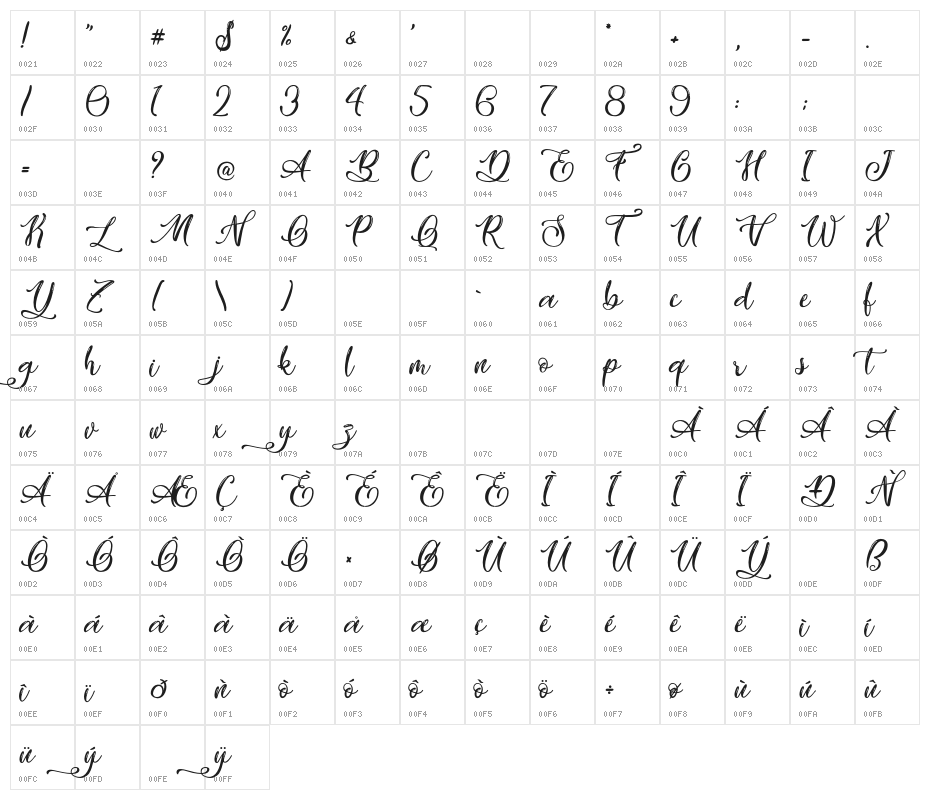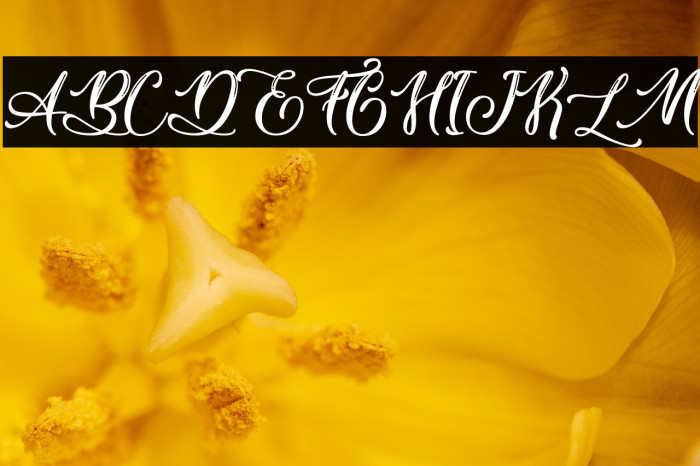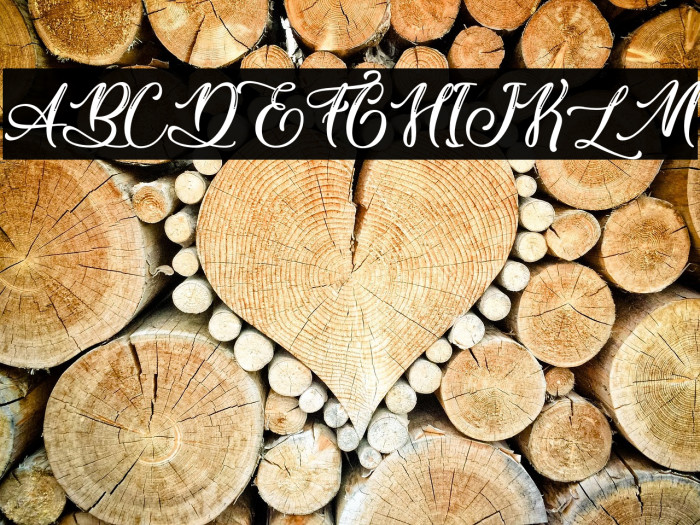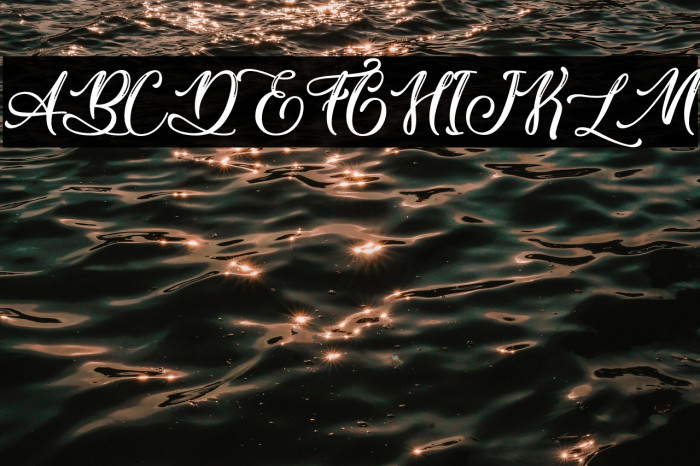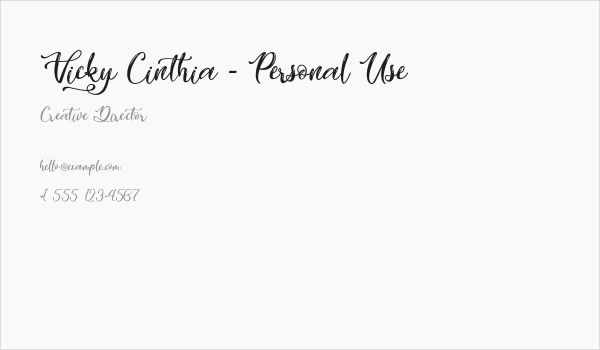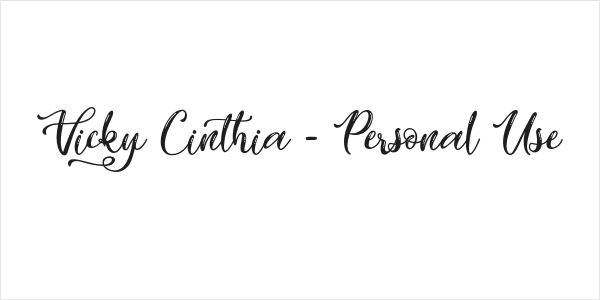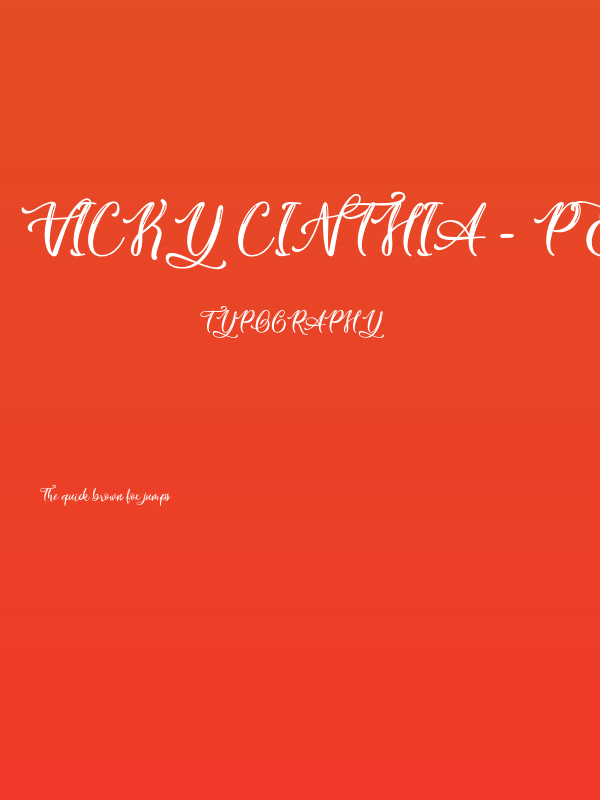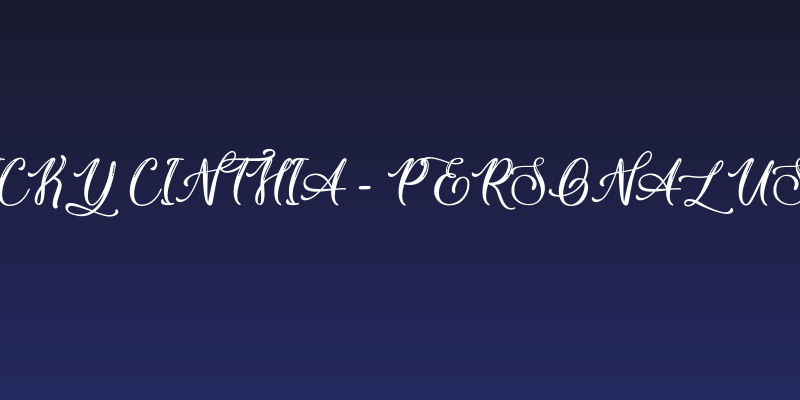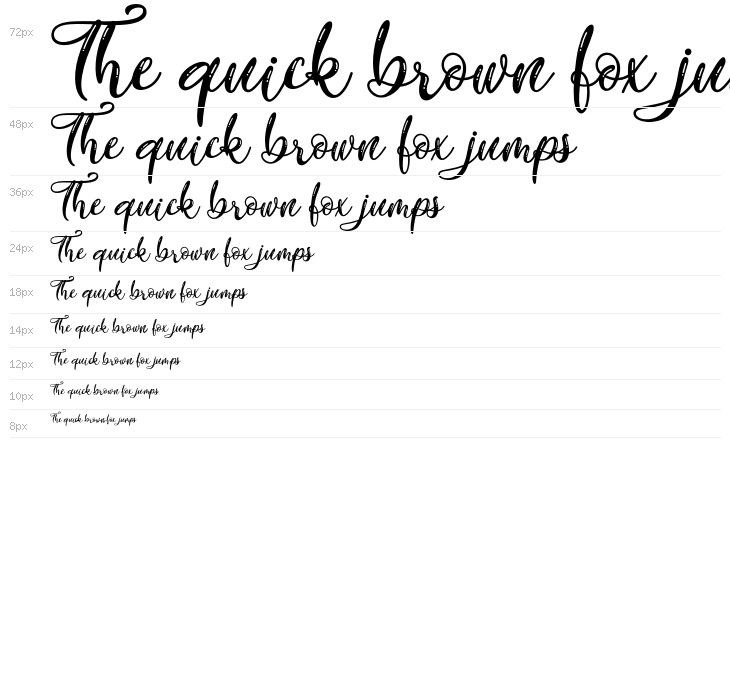
Vicky Cinthia - Personal Use Font
Vicky Cinthia - Personal Use Description
This font features an elegant and flowing script style, characterized by its cursive, handwritten appearance. The uppercase letters are ornate with intricate loops and swirls, giving them a sophisticated and decorative look. The lowercase letters maintain a consistent fluidity, with smooth connections between characters, enhancing the overall script aesthetic. The numerals are bold and slightly rounded, complementing the letterforms with their graceful curves. Special characters are designed with the same attention to detail, ensuring a cohesive and stylish presentation across all glyphs. This font exudes a sense of elegance and charm, making it ideal for projects that require a touch of sophistication and personal flair.